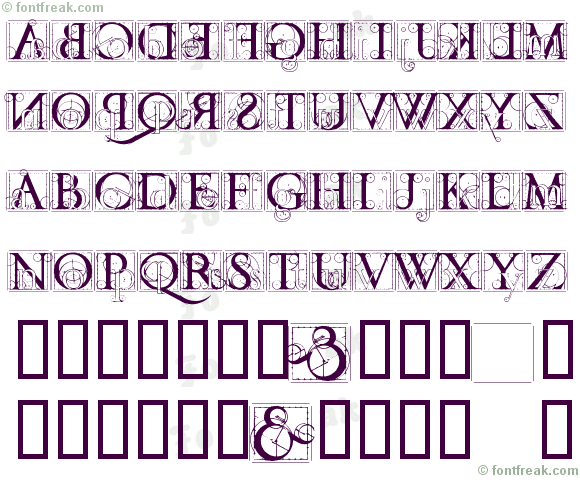
codex
codex — Character Map
About codex
Codex, designed by Steven J. Lundeen in 1997, is a unique display font that captures attention with its artistic flair and distinctive character. This freeware font is part of a limited collection that showcases Lundeen's innovative approach to typography. The Codex font features a playful combination of geometric shapes and organic forms, resulting in a visual style that is both modern and whimsical. With its varied stroke weights and intriguing decorative elements, this font embodies a sense of creativity that is hard to ignore. The contrast between the bold, rounded letters and the intricate details gives it a dynamic presence, making it suitable for a range of design projects.
Best used in creative contexts, Codex shines in applications such as event invitations, where its unique style can set an engaging tone. It also works wonderfully for book covers, adding a layer of intrigue to literary works. Restaurant menus can benefit from its artistic appeal, drawing customers in with a touch of sophistication. Additionally, Codex is an excellent choice for branding materials, helping small businesses express their identity with flair. This font is particularly appealing to graphic designers, content creators, and small business owners looking to make a memorable impression.
What sets the Codex font apart is its ability to blend artistry with functionality. It invites creativity while remaining versatile enough for various applications. The codex font free download allows individuals and businesses to incorporate this engaging typeface into their projects without barriers. Whether enhancing a personal project or elevating a professional design, Codex stands out as a remarkable option that captures the imagination and enhances visual storytelling.